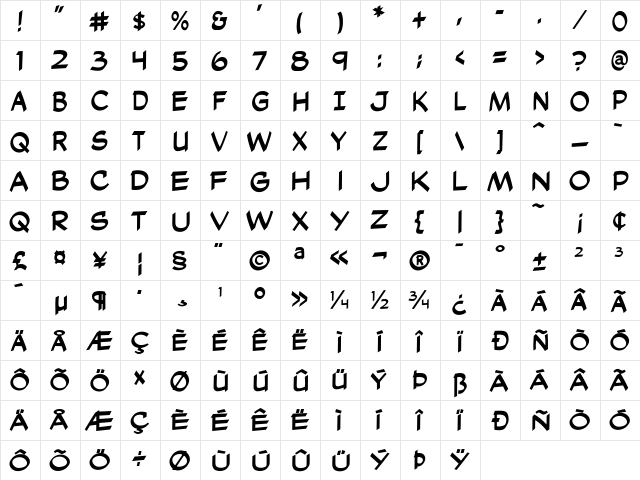
CCCutthroatInt Regular Font Preview
CCCutthroatInt Regular
Design Context for CCCutthroatInt Typeface
CCCutthroatInt is a composed and adaptable typeface that performs quietly and consistently across a wide range of design contexts.